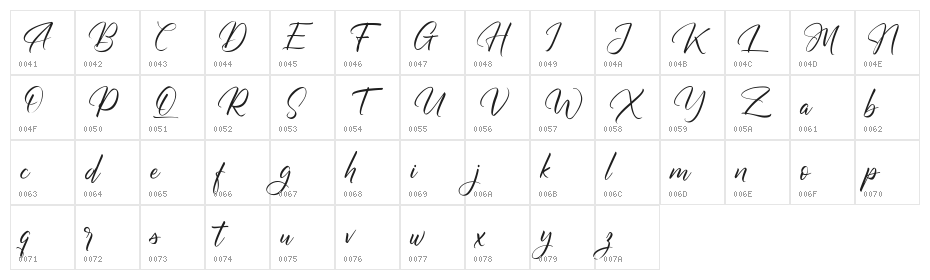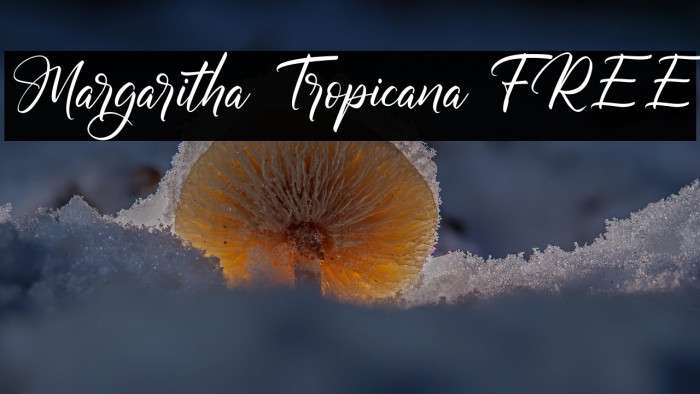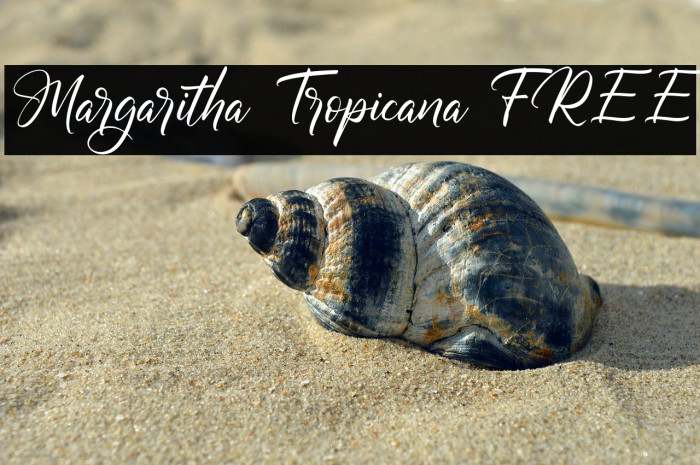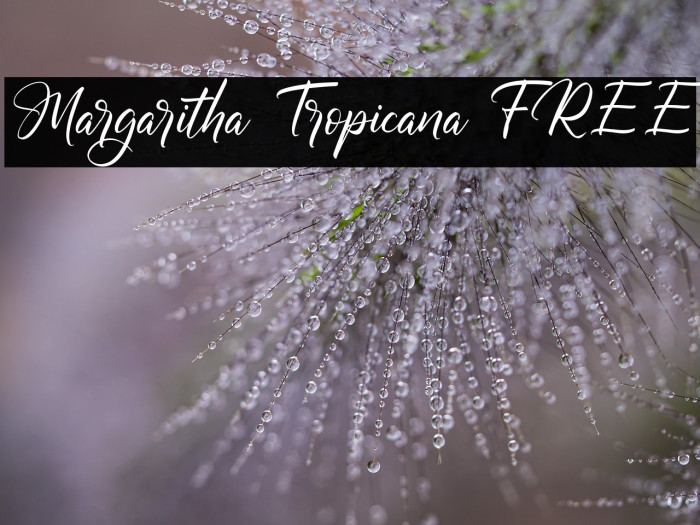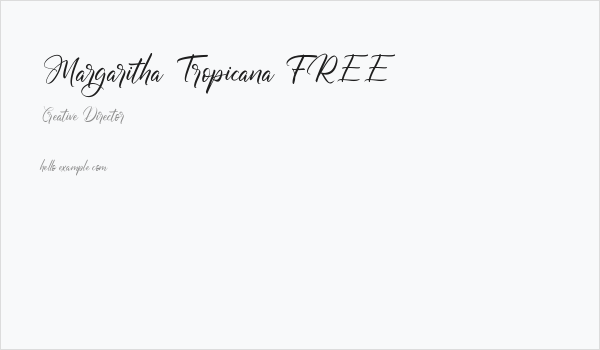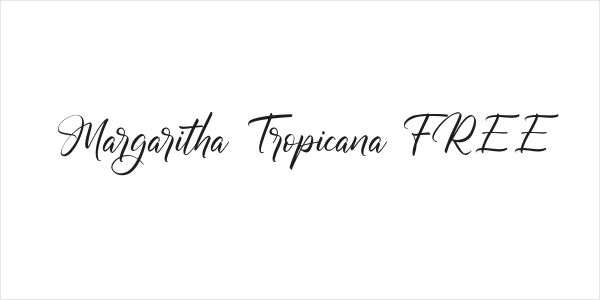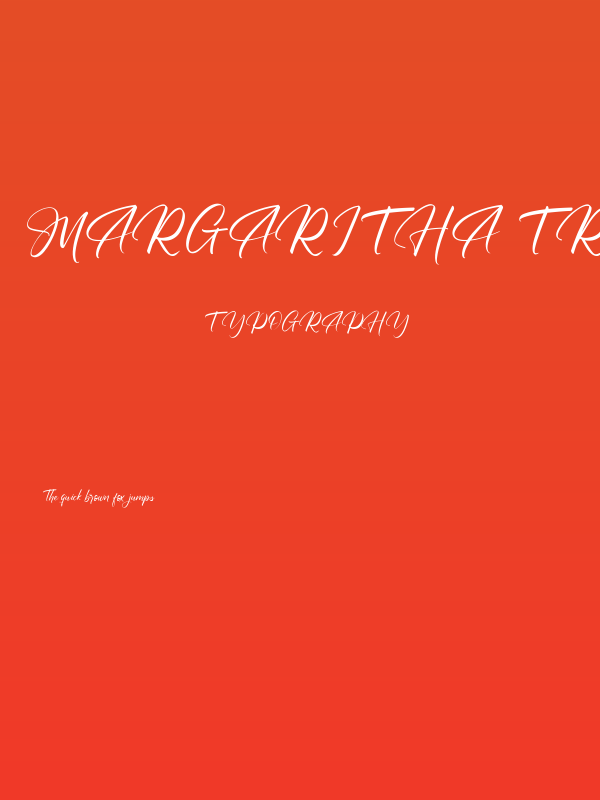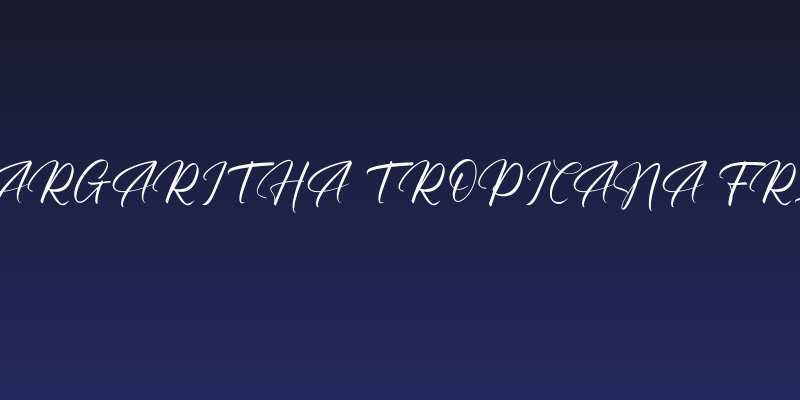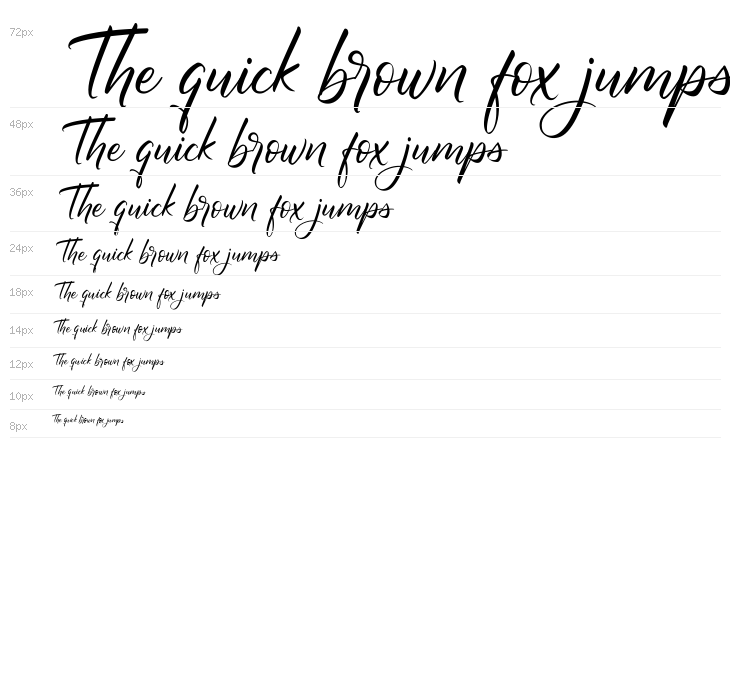
Margaritha Tropicana FREE Font
Margaritha Tropicana FREE Description
This elegant script font features a flowing, cursive style with a modern touch. The uppercase letters are characterized by their graceful loops and swashes, while the lowercase letters maintain a consistent, fluid motion. The font exudes a sense of sophistication and charm, making it ideal for projects that require a personal, handwritten feel. The characters are well-spaced, allowing for easy readability despite the intricate design. The font's overall appearance is both stylish and versatile, suitable for a variety of creative applications.